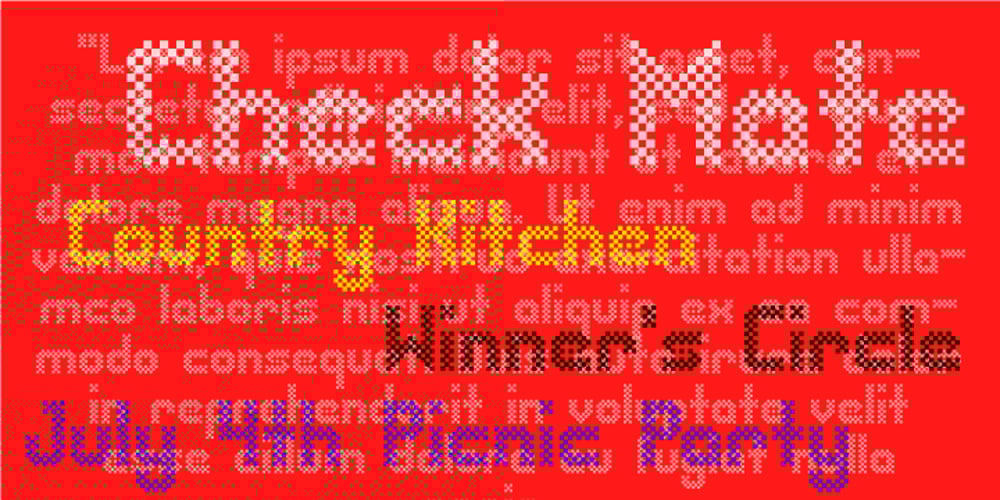
Check Mate Font Family was designed by Wilson Thomas and published by Funk King. Check Mate contains 1 styles and family package options. Check Mate is a modern, playful checkerboard-style font.